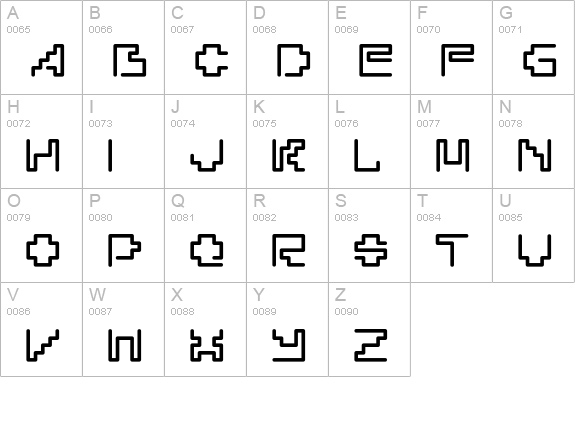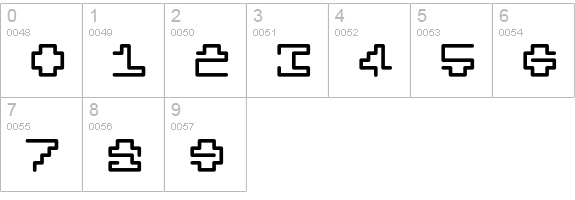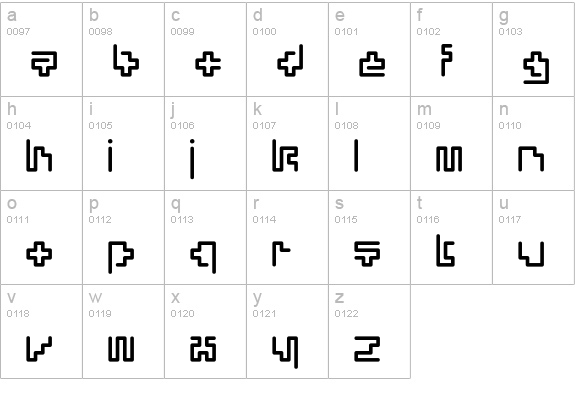
Silesia-Medium Font Details
Silesia-Medium is a balanced, medium-weight variant in the Silesia typeface family \xE2\x80\x94 well suited to sub-headlines, navigation, and balanced editorial work.
Silesia-Medium font is a stunning display typeface that exudes elegance and sophistication. Its timeless design combines classic elements with a modern twist, making it the perfect choice for a wide range of projects. This versatile font features medium-weight strokes that strike a harmonious balance between readability and visual impact. Each letter is meticulously crafted, showcasing intricate details and clean lines that add a touch of refinement to any design. Silesia-Medium is not only visually captivating but also highly legible, ensuring that your message is conveyed with clarity and precision. Whether you're designing a logo, creating a poster, or crafting a wedding invitation, this font will effortlessly elevate your work to new heights. What sets Silesia-Medium apart is its accessibility. It is freely available to download at FontsMarket.com, allowing designers, creatives, and enthusiasts alike to access its beauty and versatility without any restrictions. This font empowers users to unleash their creativity and enhance their projects with a touch of sophistication, all while being easily accessible to everyone. With Silesia-Medium, you can create stunning visuals that leave a lasting impression. Its timeless design, combined with its availability as a free download, makes it an indispensable tool for any designer looking to take their creations to the next level. Don't miss the opportunity to add this remarkable font to your collection and let your creativity shine.